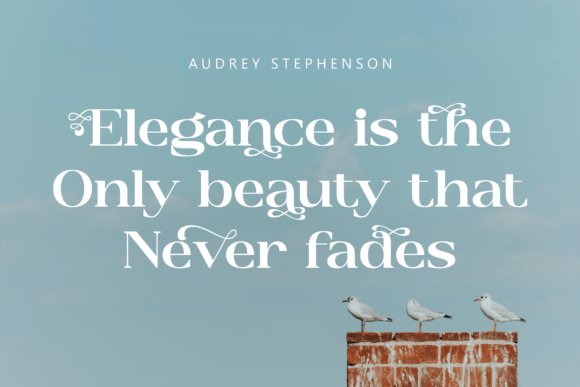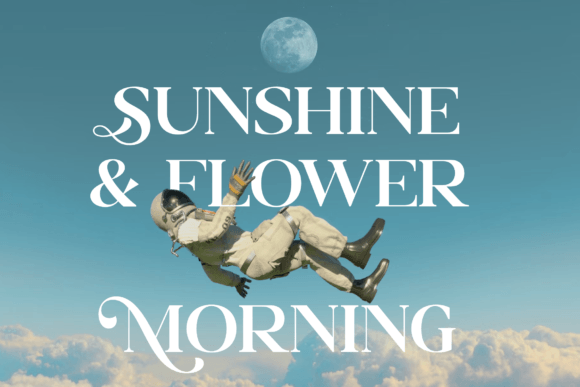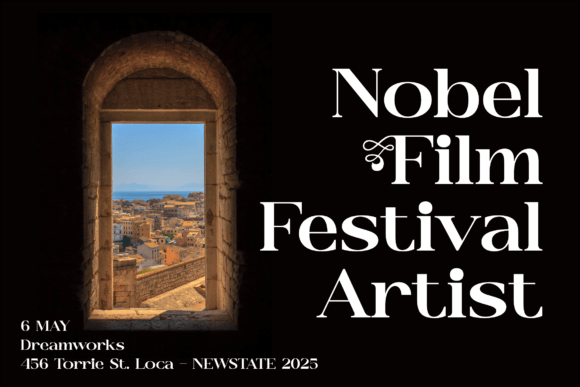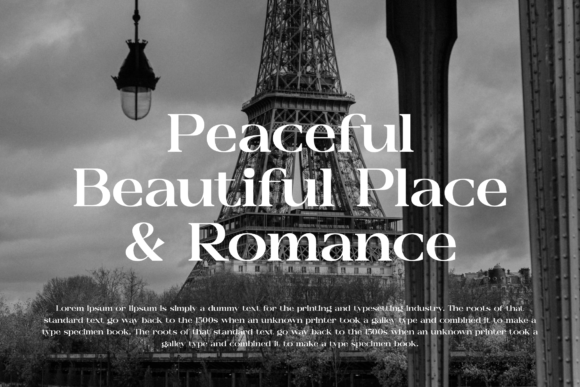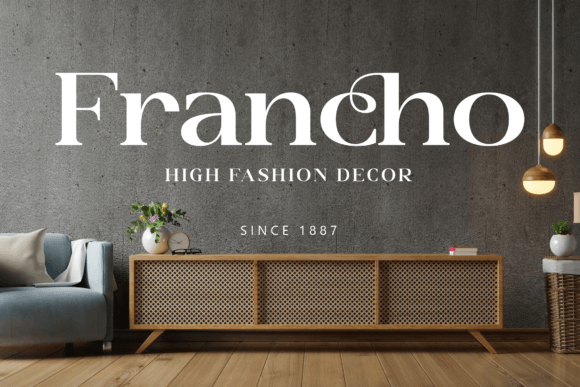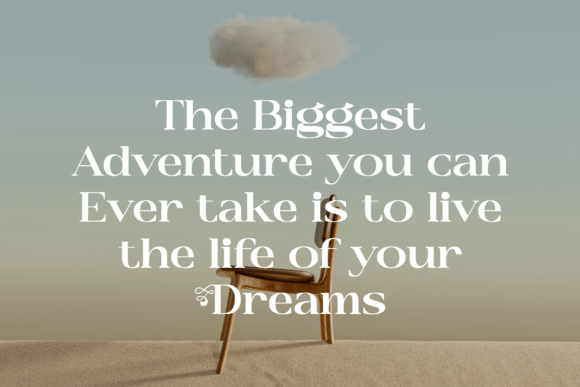
The Glashick Font: Elevate Your Designs with Elegance and Sophistication
Have you ever been in the midst of working on a project, and suddenly, you’re struck by a wave of creative block? You’re not alone! I recall a recent experience where I was designing a luxury brand logo, and I just couldn’t find the perfect font to capture the essence of the client’s vision. That’s when I stumbled upon the Glashick font, and it was love at first sight! ✨
A Modern Serif Font with a Unique Twist
Glashick is a modern serif font that boasts a unique style and exquisite look, making it perfect for designs that require an air of elegance and sophistication. This typeface is ideal for luxury logos, book or movie title designs, fashion brands, magazines, clothing, lettering, quotes, and so much more. One of the standout features of Glashick is its PUA encoding, which allows you to access all the glyphs and swashes with ease!
An Honest Review: What I Love and What I Don’t
The Good: ✨
- ✅ Exquisite and elegant design that’s perfect for luxury brands
- ✅ Highly versatile and can be used for a wide range of design projects
- ✅ Works beautifully with OpenType features and stylistic alternates
The Not-So-Good: 🤔
- ⚠️ Some users may find the font a bit too ornate for certain projects
- ⚠️ Limited use for body text due to its decorative nature
The Designer Inspiration Behind Glashick
Glashick was designed with the intention of creating a font that exudes elegance and sophistication. The designer aimed to create a typeface that would be perfect for luxury brands and designs, while also being versatile enough to be used for a wide range of projects. Although the designer’s story is shrouded in mystery, it’s clear that Glashick was crafted with love and attention to detail.
Q: Is Glashick suitable for body text?
A: Due to its decorative nature, Glashick is not recommended for body text. Instead, use it for titles, headings, or quotes.